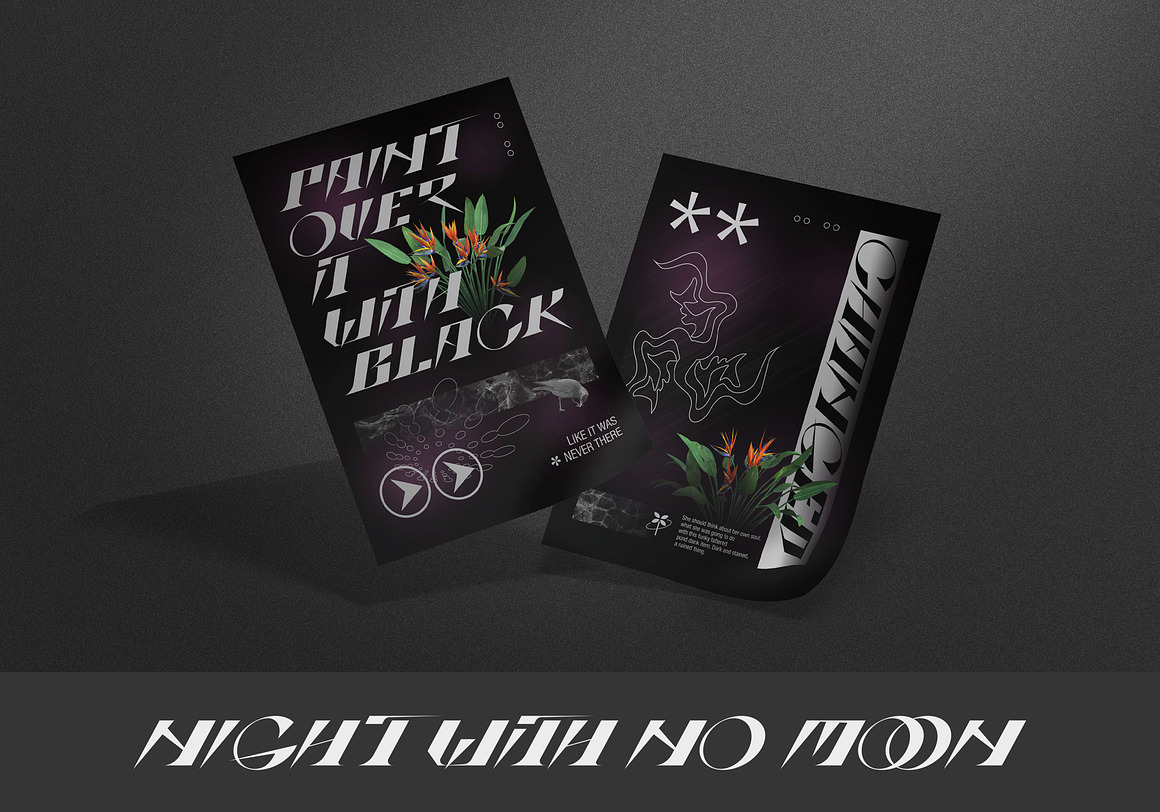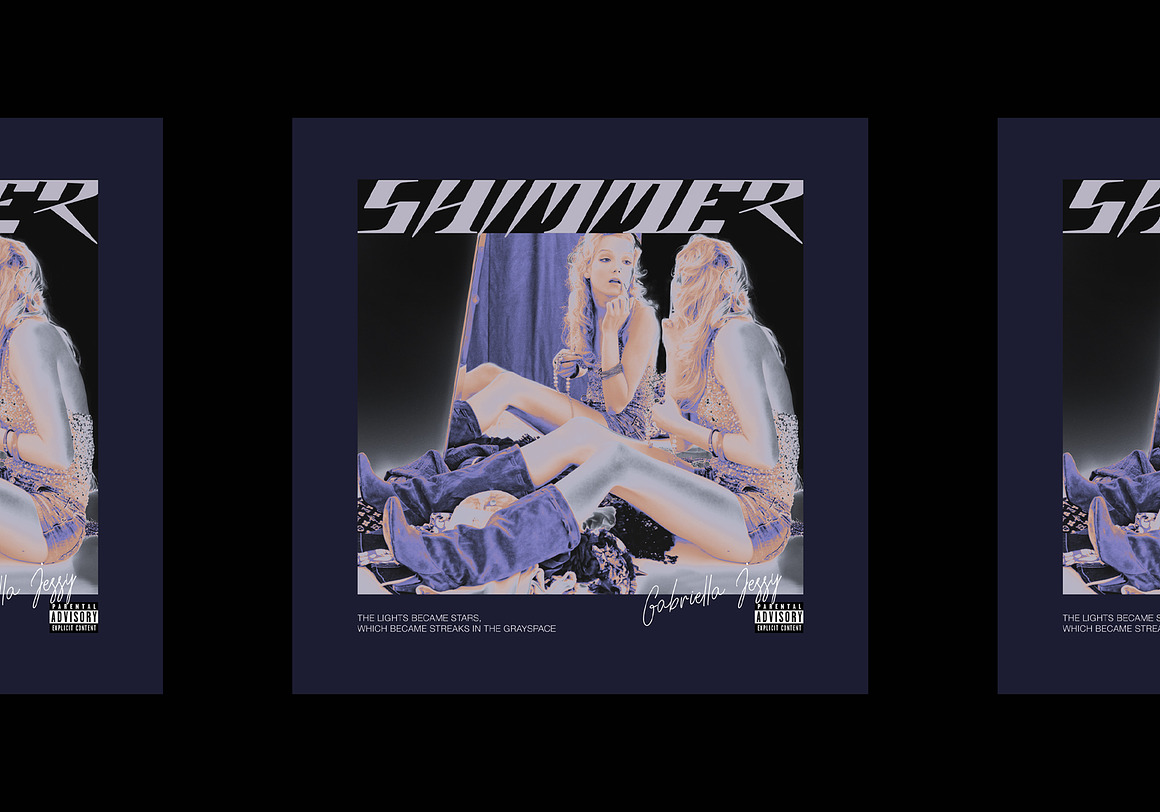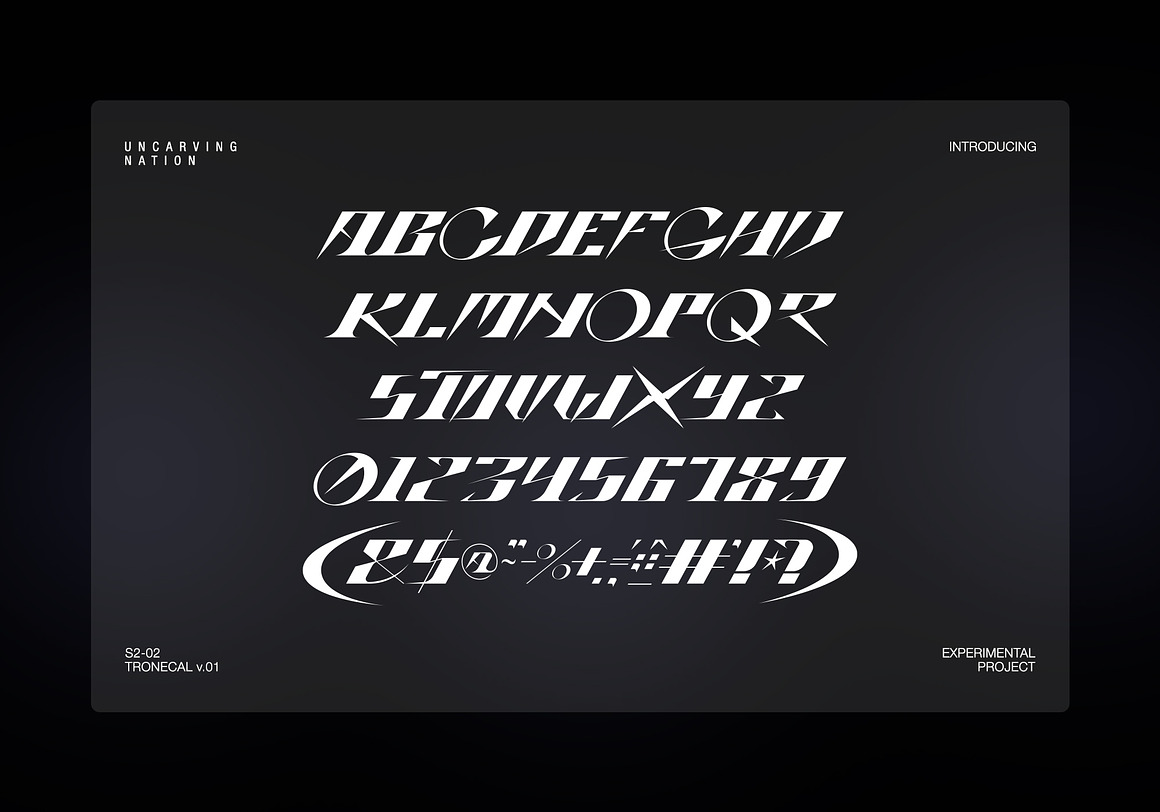
Welcome to Tronecal – Display Font!
Tronecal is a beautifully crafted font designed by uncarving, featuring a futuristic touch that maintains simplicity and unique shapes. Its bold and modern design makes it perfect for a variety of projects, including gaming graphics, tech branding, space-themed designs, and virtual reality visuals. 🚀🌌
- Modern Design: Captivates attention with its unique shapes and futuristic vibe.
- Versatile Usage: Ideal for branding, headlines, and any project needing a bold statement.